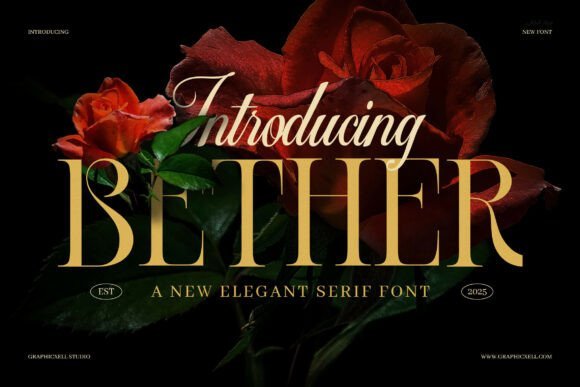
The Perfect Typography: Unleashing the Power of Bether Font
Have you ever stared at a blank page, staring at a sea of empty space, and wondered what the perfect font could be? Maybe you’re working on a logo for a new fashion brand, or designing a layout for a magazine. Whatever your creative project may be, the right font can make all the difference. And that’s where Bether Font comes in – a clean and modern serif font that adds a touch of class to any design.
Bether Font is designed to be versatile and easy to work with. With its soft edges and timeless style, it’s perfect for titles, logos, and even short body text. Whether you’re going for a bold or minimal look, Bether Font is a great choice. Its sharp lines and soft curves work well in both big and small sizes, making it a valuable asset for any designer looking to add some style to their work.
- Unique Characteristics: Bether Font features a unique blend of modern and vintage elements, making it ideal for creative and artistic projects.
Bether Font Review
I recently had the chance to work with the Bether font, and I have to say it’s been an interesting experience. ✨ One of the things that works well is its unique and playful aesthetic. It’s perfect for adding a touch of whimsy to your designs, and it’s especially great for headings and titles.
Another advantage of Bether is its versatility. ✨ It comes in a range of weights, from light to bold, which makes it easy to use in a variety of contexts. Whether you’re designing a logo, a brochure, or a website, Bether is a great choice.
- ⚠️ Bether can be a bit difficult to read at small font sizes, especially in body text. It’s best used for headings and titles.
- ⚠️ The font’s unique aesthetic may not be to everyone’s taste. If you’re designing for a conservative or traditional audience, you may want to choose a more neutral font.
Overall, I think Bether is a great choice for designers who want to add a bit of personality to their work. ✨ It’s perfect for projects that need a touch of whimsy or playfulness, but it may not be the best choice for more formal or traditional designs.
Bether Font is commonly used in:
- Branding and marketing materials (e.g., logos, business
Alternatives to Bether Font
Great Vibes is a beautiful, elegant script font ideal for designing invitations, wedding cards, and other special occasions. It features a smooth, flowing connection between letters, making it perfect for creating a sense of sophistication and refinement.
Compared to Bether Font, Great Vibes has a more refined and luxurious feel, making it suitable for high-end branding and packaging. However, Bether Font has a more playful and whimsical vibe, making it ideal for younger audiences and more casual designs.
Pacifico is a modern, elegant script font that works well for designing logos, branding, and packaging. Its clean lines and minimalist aesthetic make it perfect for creating a sense of calm and serenity.
Compared to Bether Font, Pacifico has a more subtle and understated feel, making it suitable for a wider range of designs and audiences. However, Bether Font has a more dramatic and eye-catching quality, making it ideal for creating a sense of excitement and energy.